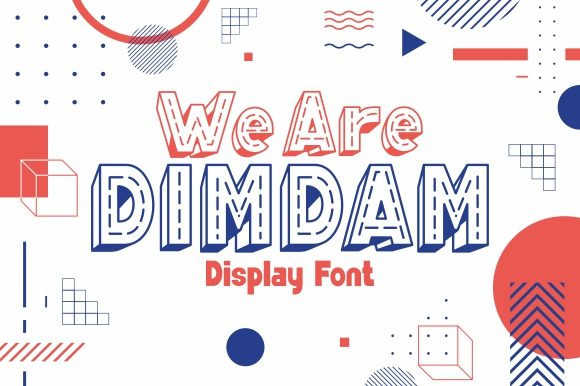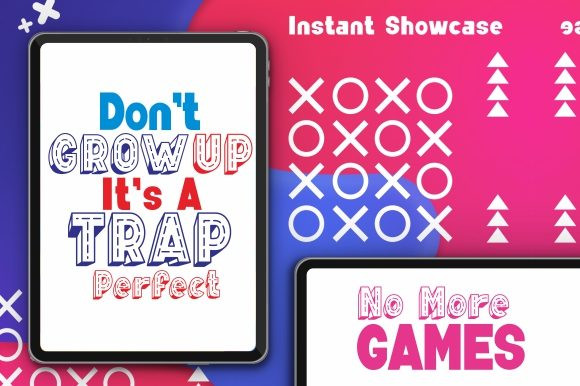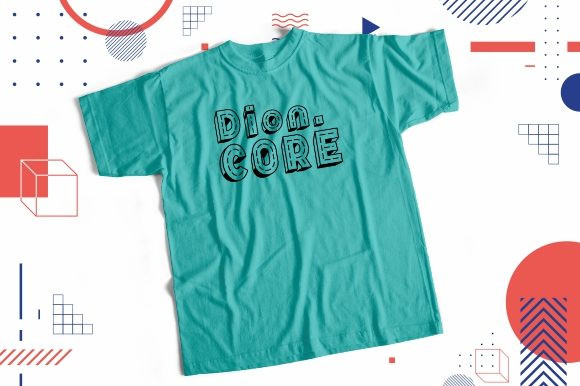
We Are Dimdam Font
We Are Dimdam FontWe Are Dimdam is an awesome 3D display font that will fit perfectly on each of your designs.
Have fun with this beautiful font and explore its endless variations.